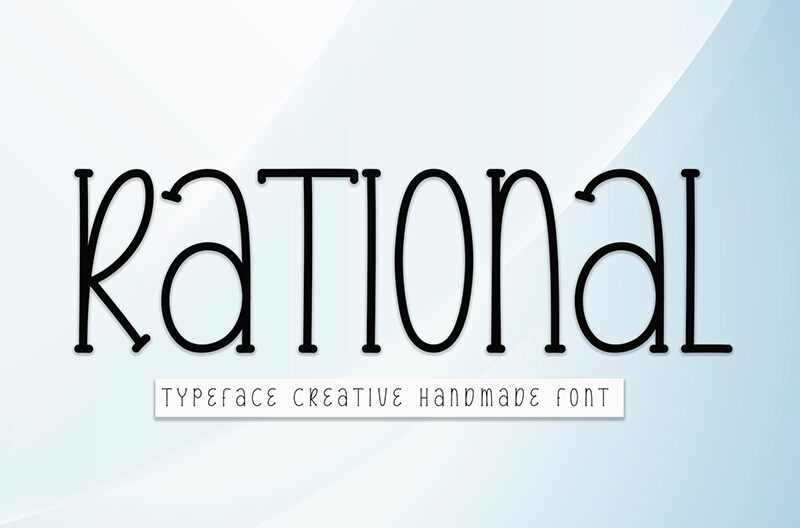
Rational
Rational font by Andi Moz is a handwritten typeface with a light and condensed structure. Expressive and whimsical, the free font has geometric influences that are noticeable in its proportions. Its handcrafted feel gives this retro-inspired typeface approachable aesthetics that suit multiple projects.
Use Rational in branding, signs, social media posts, games, digital designs, creative content like tote bags or stationary goods such as notebooks. This font fits well on book covers whether they are for children or adults. It is suitable for labels or typography art pieces such as inspirational quotes to hang on walls and other interior spaces.